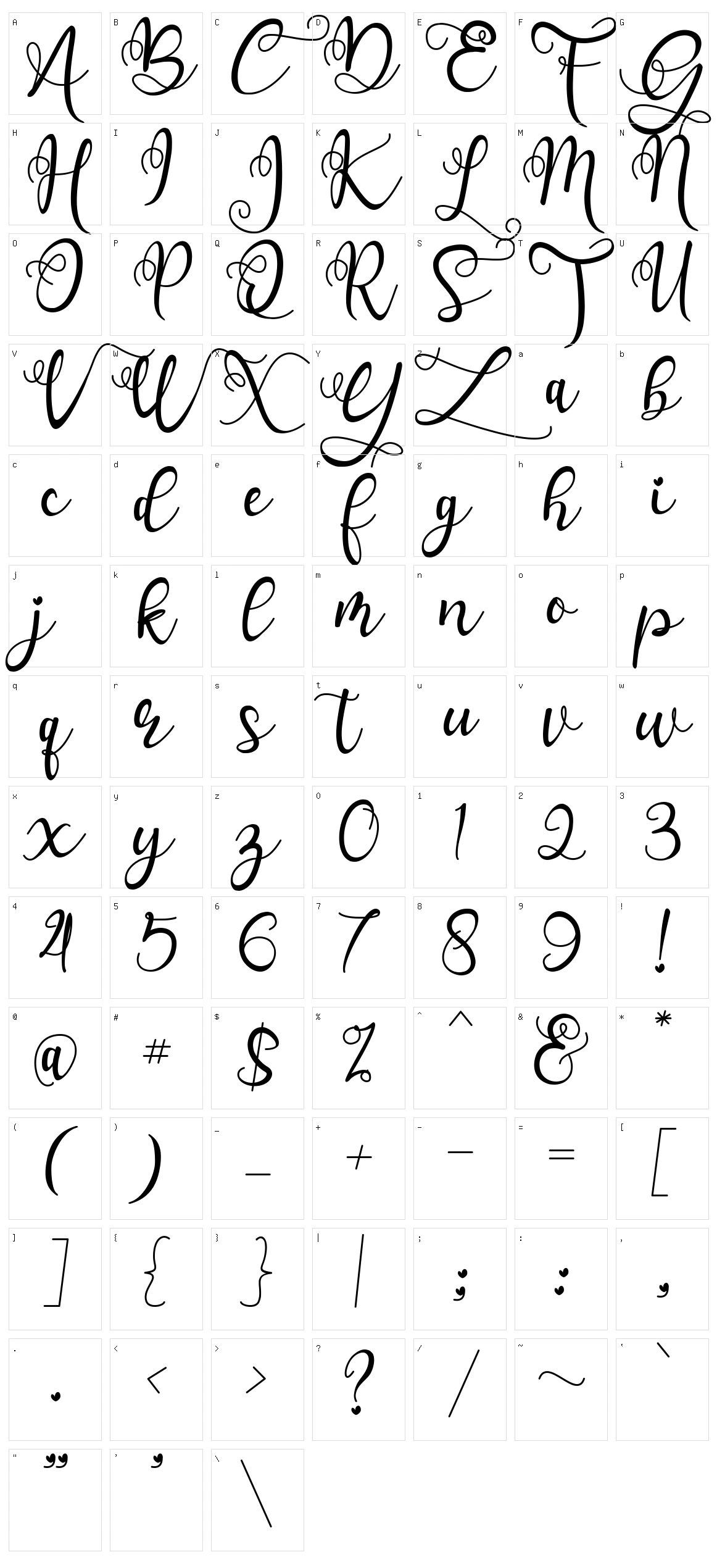
The free font Carmelio is carefully designed by RT Studio, showcasing a thoughtful balance of creativity and usability and falls under the Script font style. When you download the ZIP file, it contains only 111.73 KB of font files, making it lightweight and quick to download. Please review the license details below to understand permitted usage and distribution rights. If license information is not available, we recommend using this font for personal projects only or contacting the author directly for commercial usage permissions.